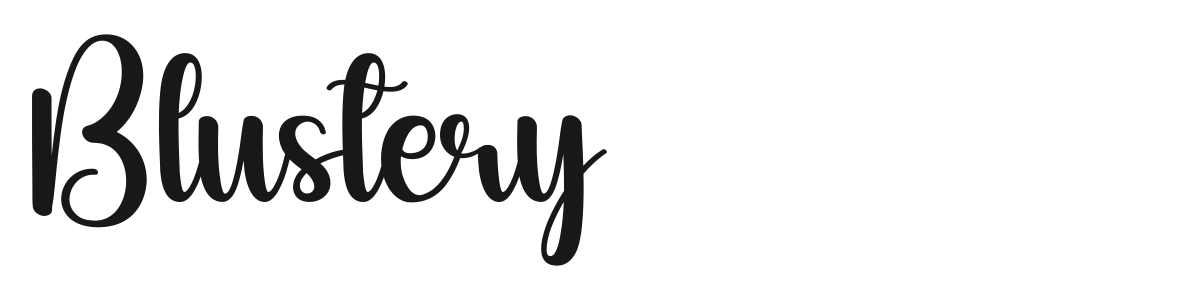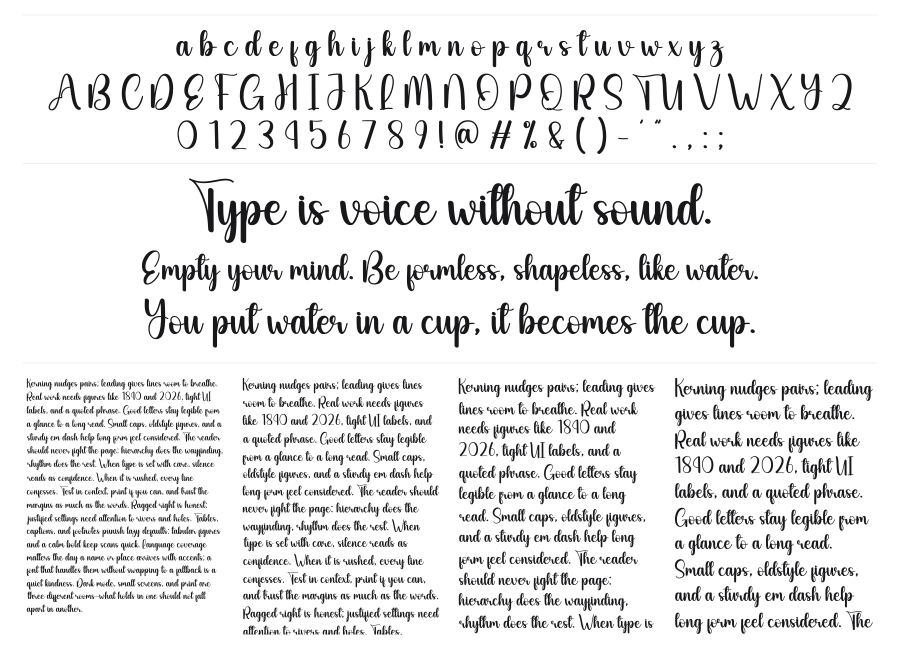
Blustery
Blustery is a bold casual script with a lively bounce and strong stroke contrast between thick stems and fine hairline connectors. The generous loops and rhythmic baseline give it an energetic, handcrafted warmth that suits wedding stationery, branding, and social media graphics. It carries personality without tipping into novelty.